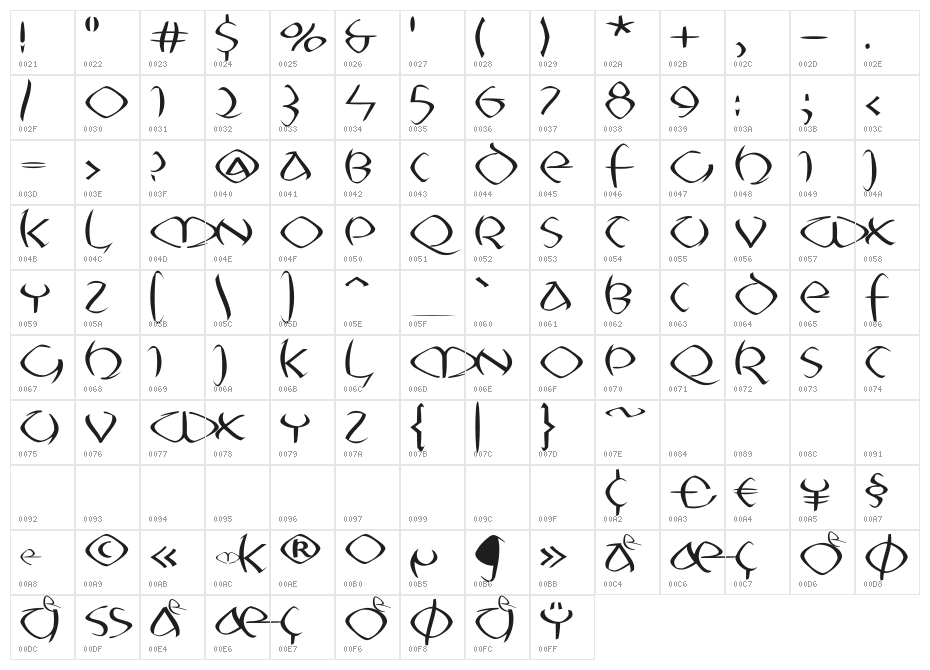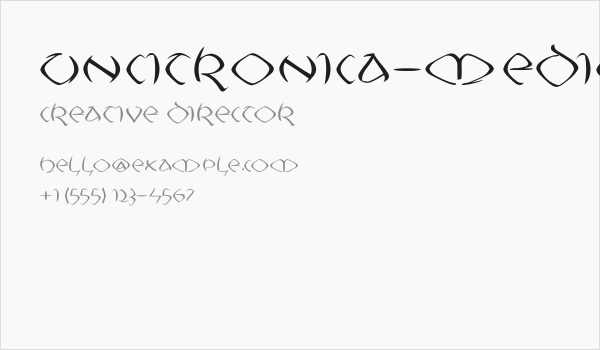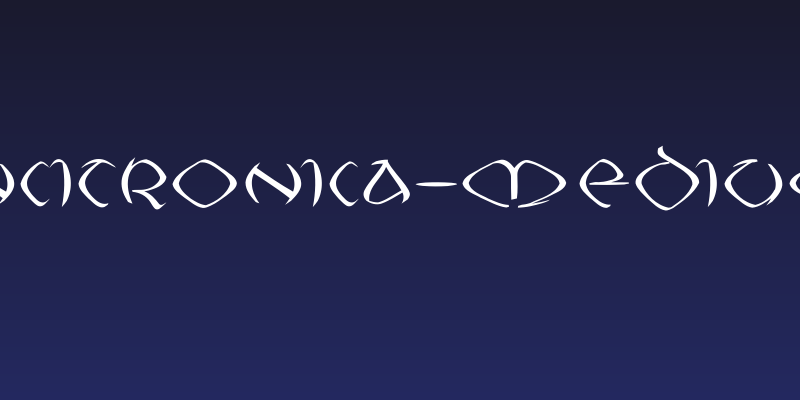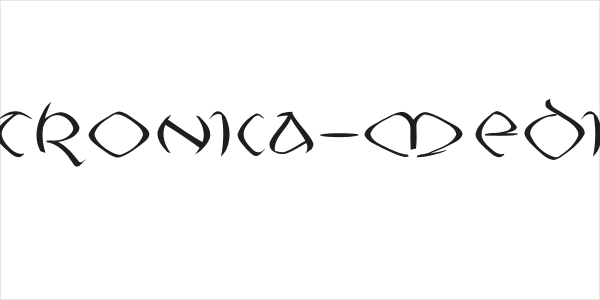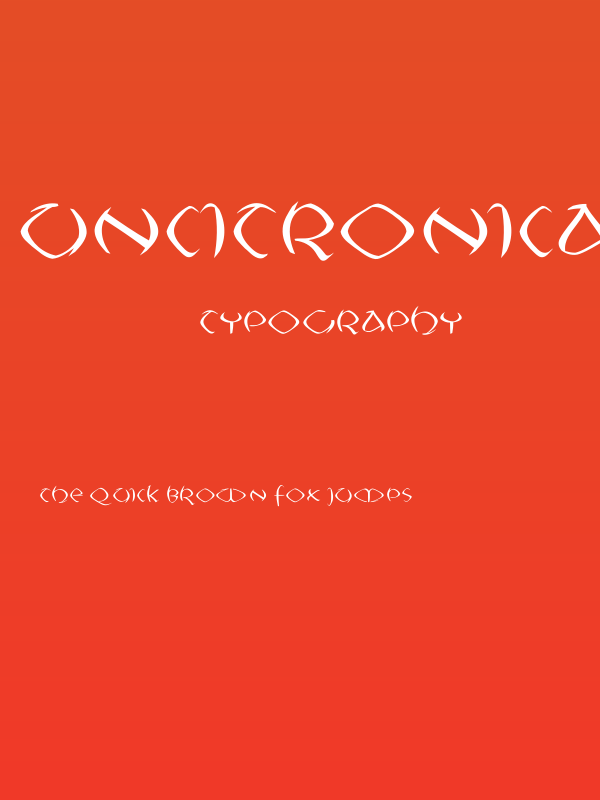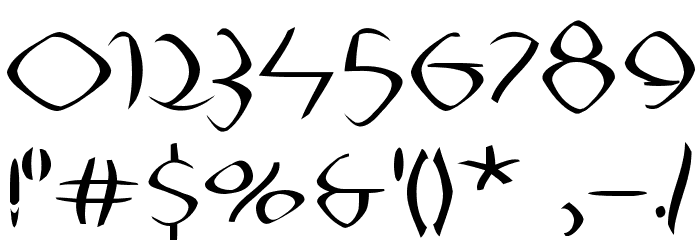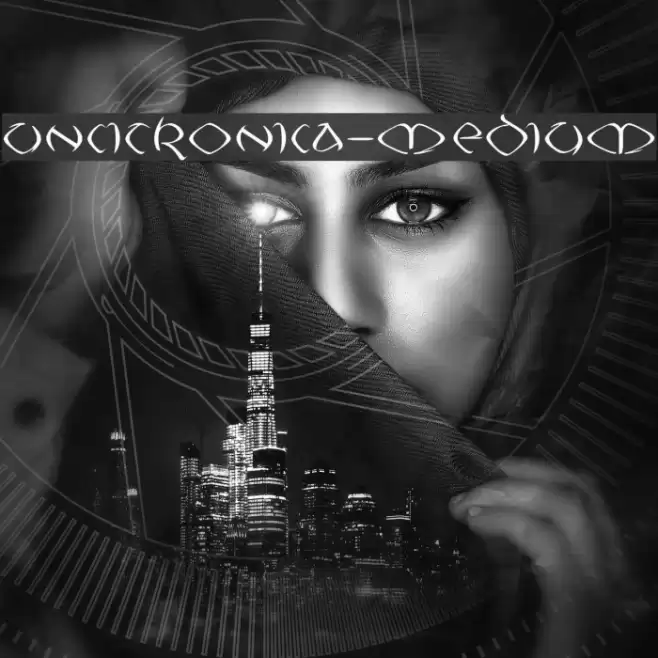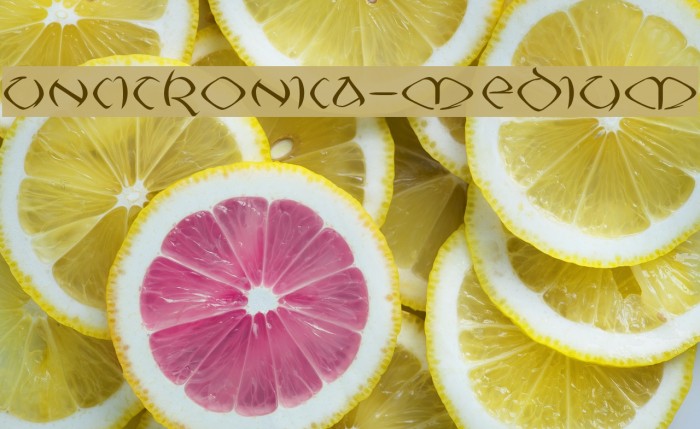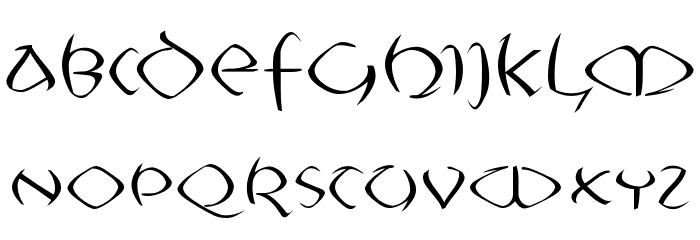
Uncitronica-Medium Font
✎ Calligraphic
Uncitronica-Medium Description
This font features a unique and artistic design, characterized by sharp, angular strokes and a calligraphic flair. The letters have a dynamic, flowing appearance, with distinctive curves and pointed edges that create a sense of movement and energy. The uppercase and lowercase letters maintain a consistent style, with a harmonious balance between thick and thin lines. The numerals and special characters follow the same aesthetic, ensuring a cohesive look across all text elements. This font's bold and expressive nature makes it stand out, offering a modern twist on traditional calligraphy.
| Use Case | Logos, Headlines, Posters |
| Proposed Projects | Ideal for branding, logos, posters, and artistic projects that require a bold and expressive typeface. |